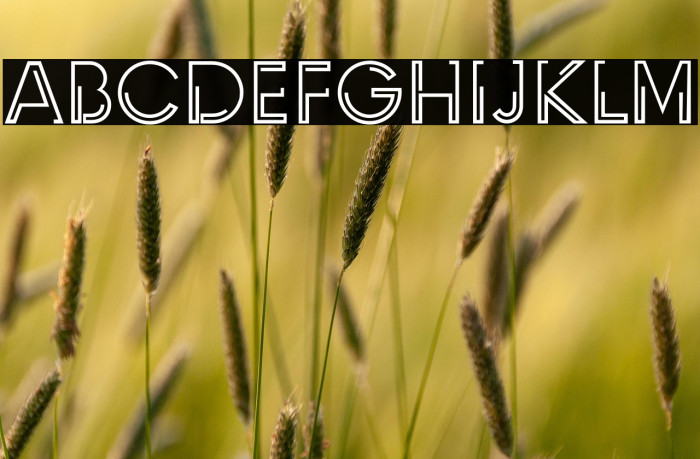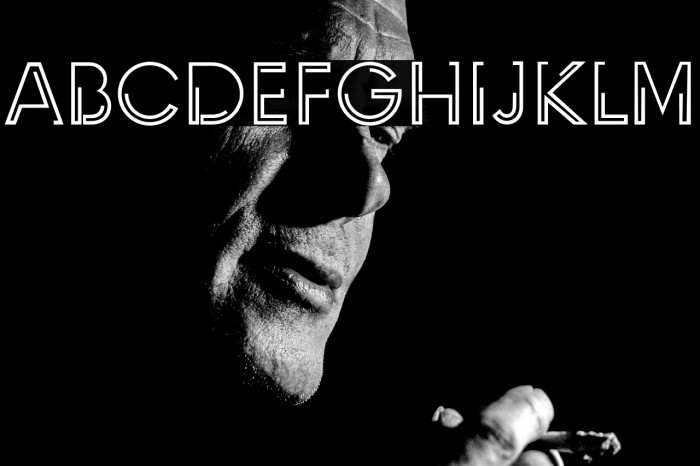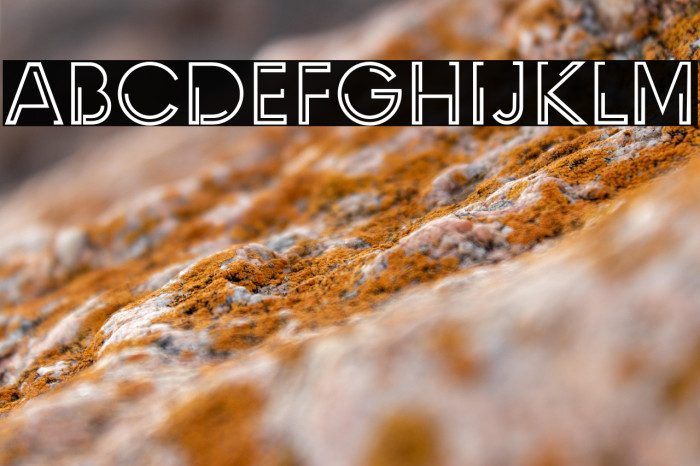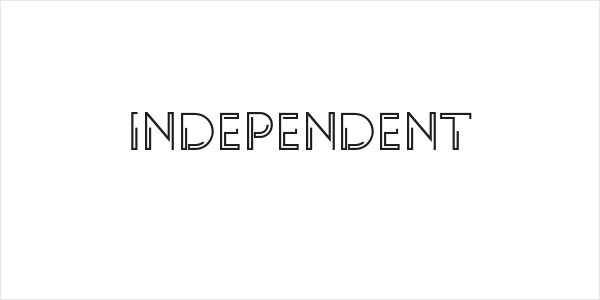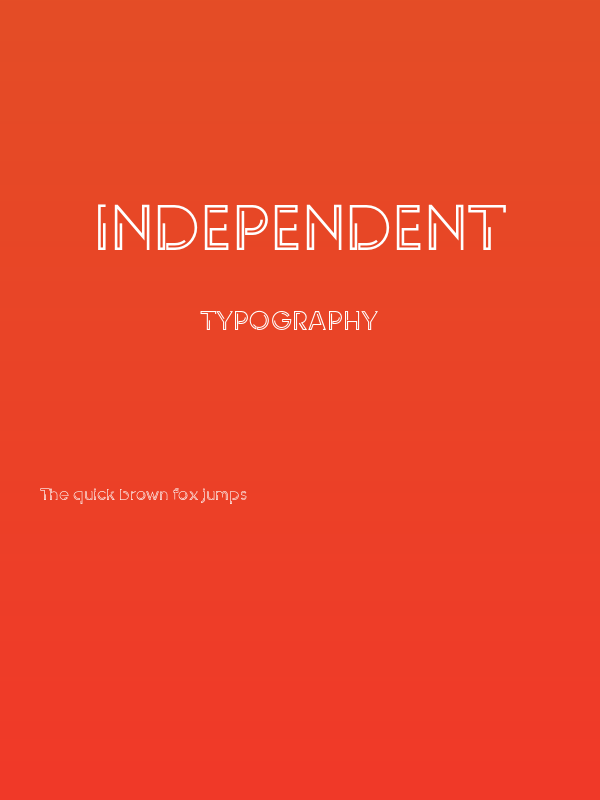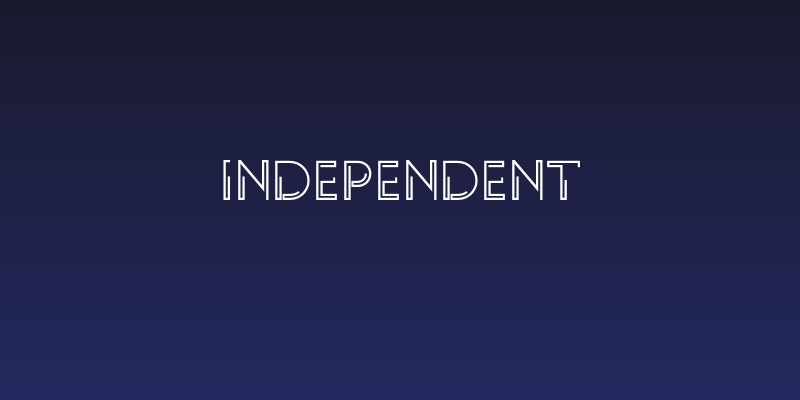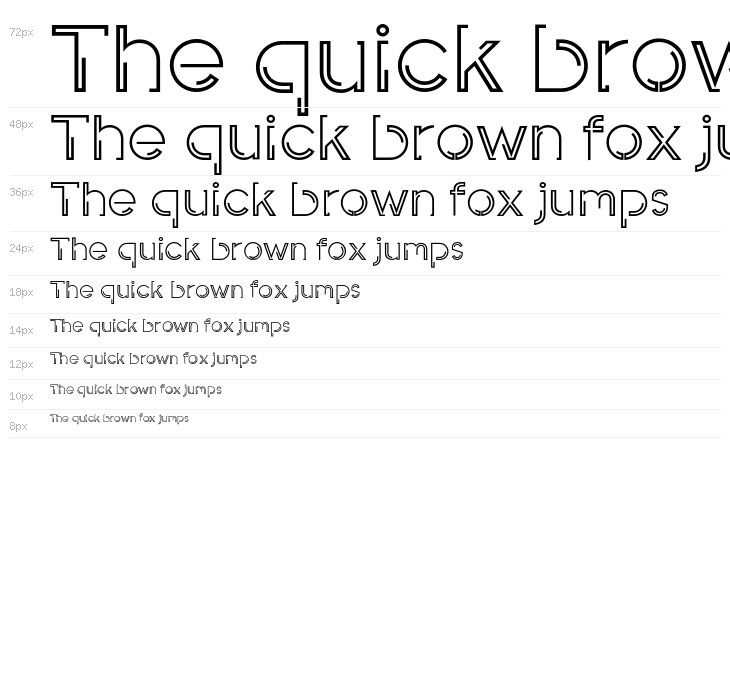
INDEPENDENT Font
INDEPENDENT Description
This font features a modern and geometric design with a unique twist. Each character is crafted with a combination of clean lines and subtle curves, creating an open and airy feel. The uppercase letters exhibit a distinct style with cut-out sections, adding a sense of depth and dimension. Lowercase letters maintain a consistent geometric form, ensuring readability while retaining the font's distinctive character. Numbers and special characters follow the same design principles, making them cohesive with the alphabet. The overall look is both futuristic and stylish, suitable for a variety of creative applications.